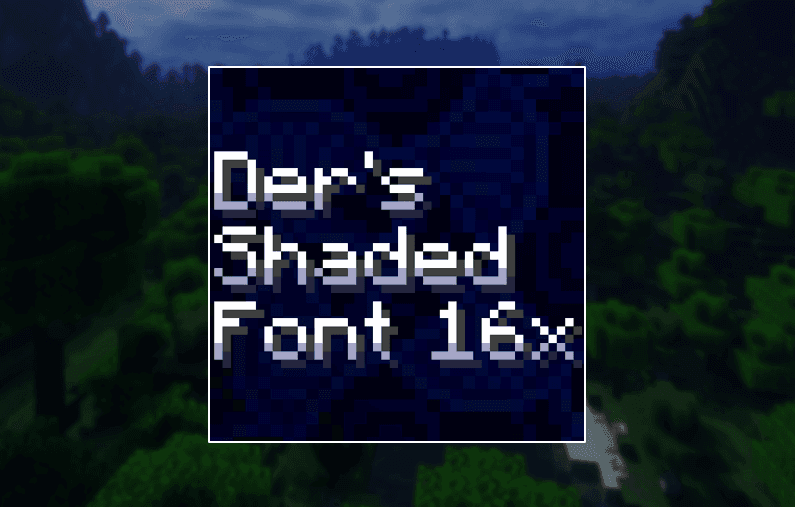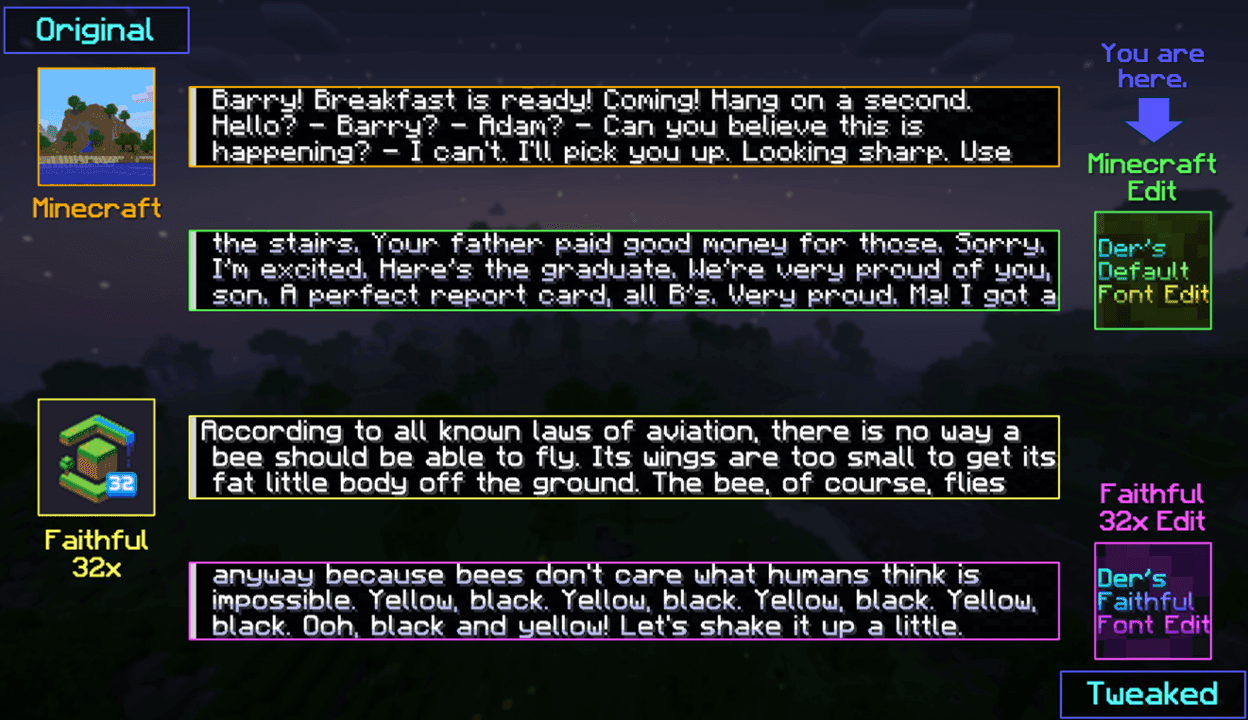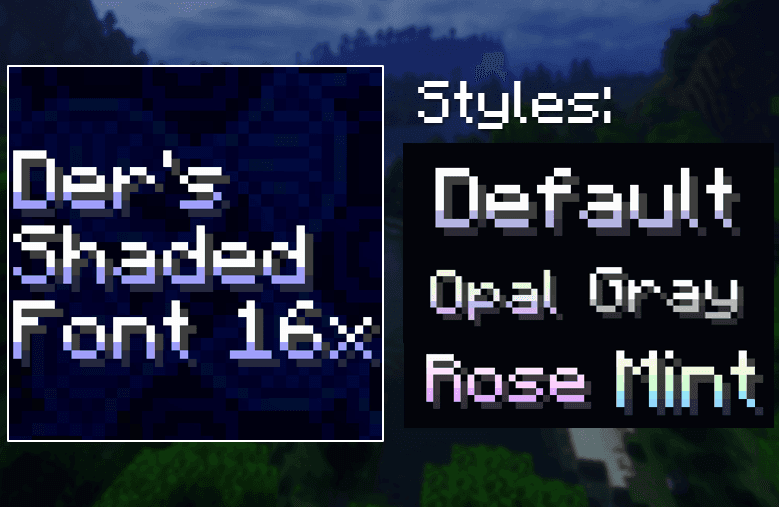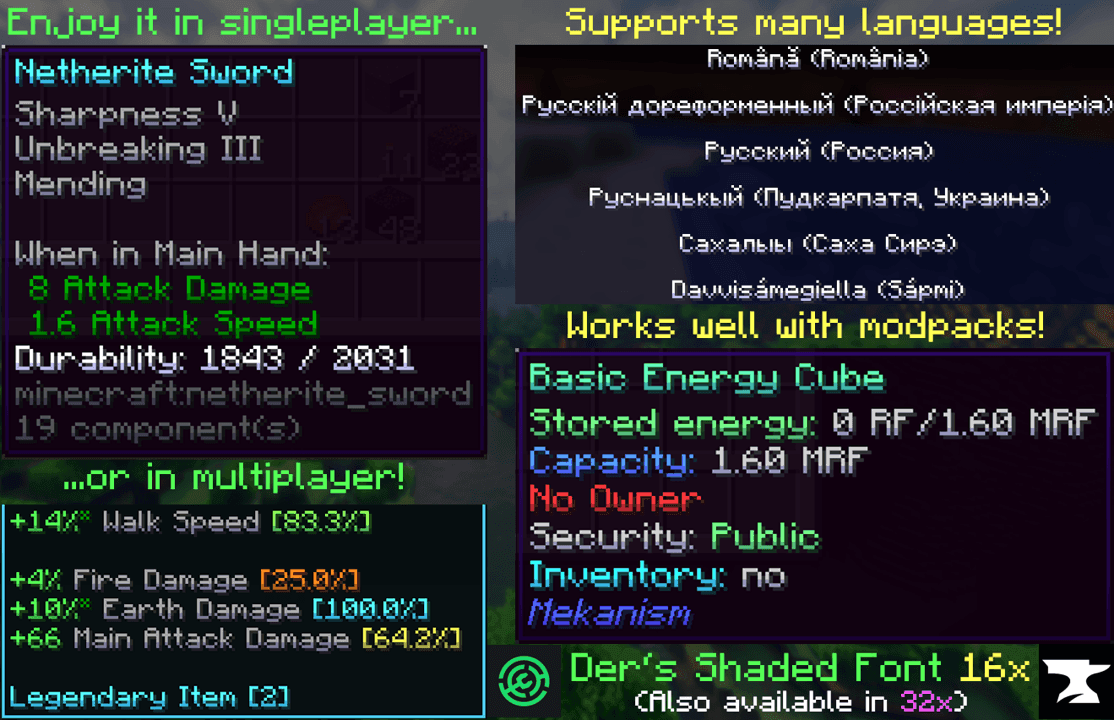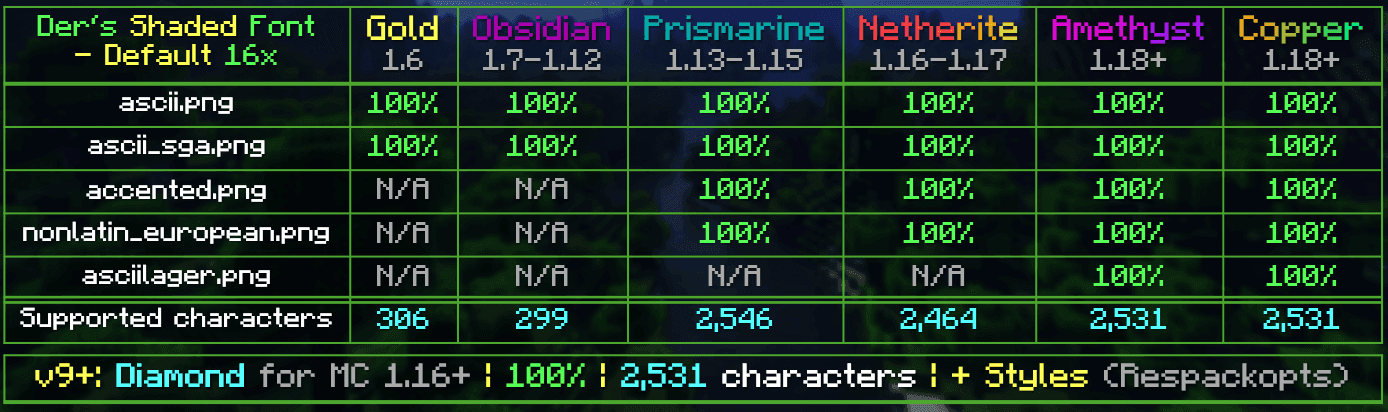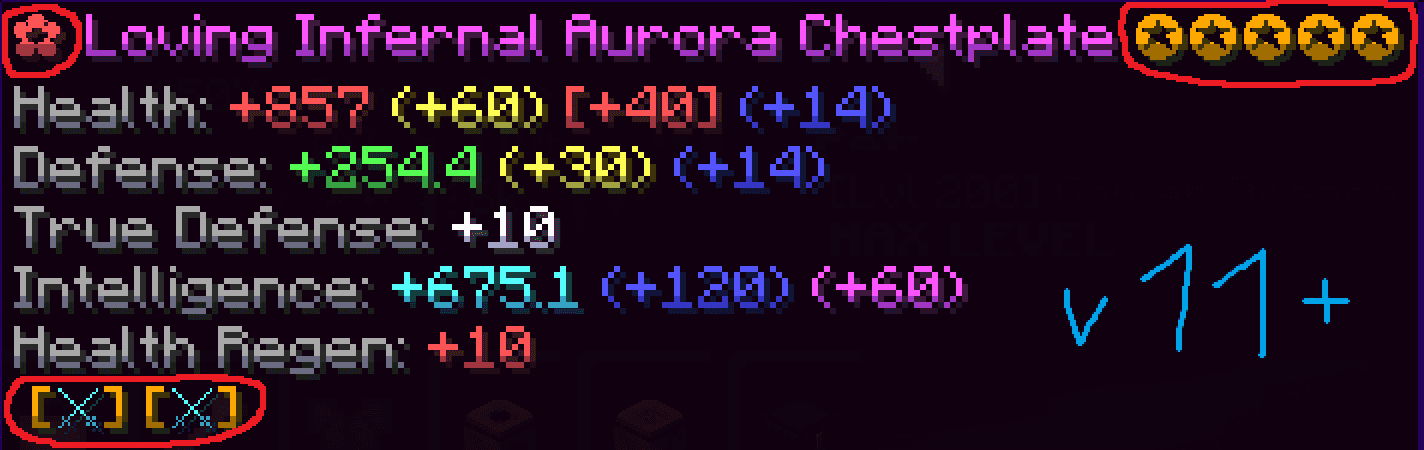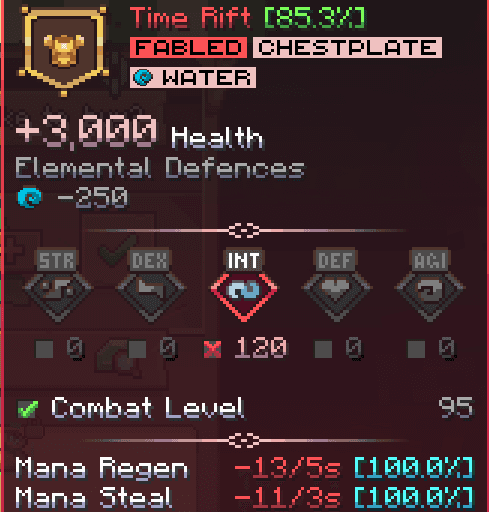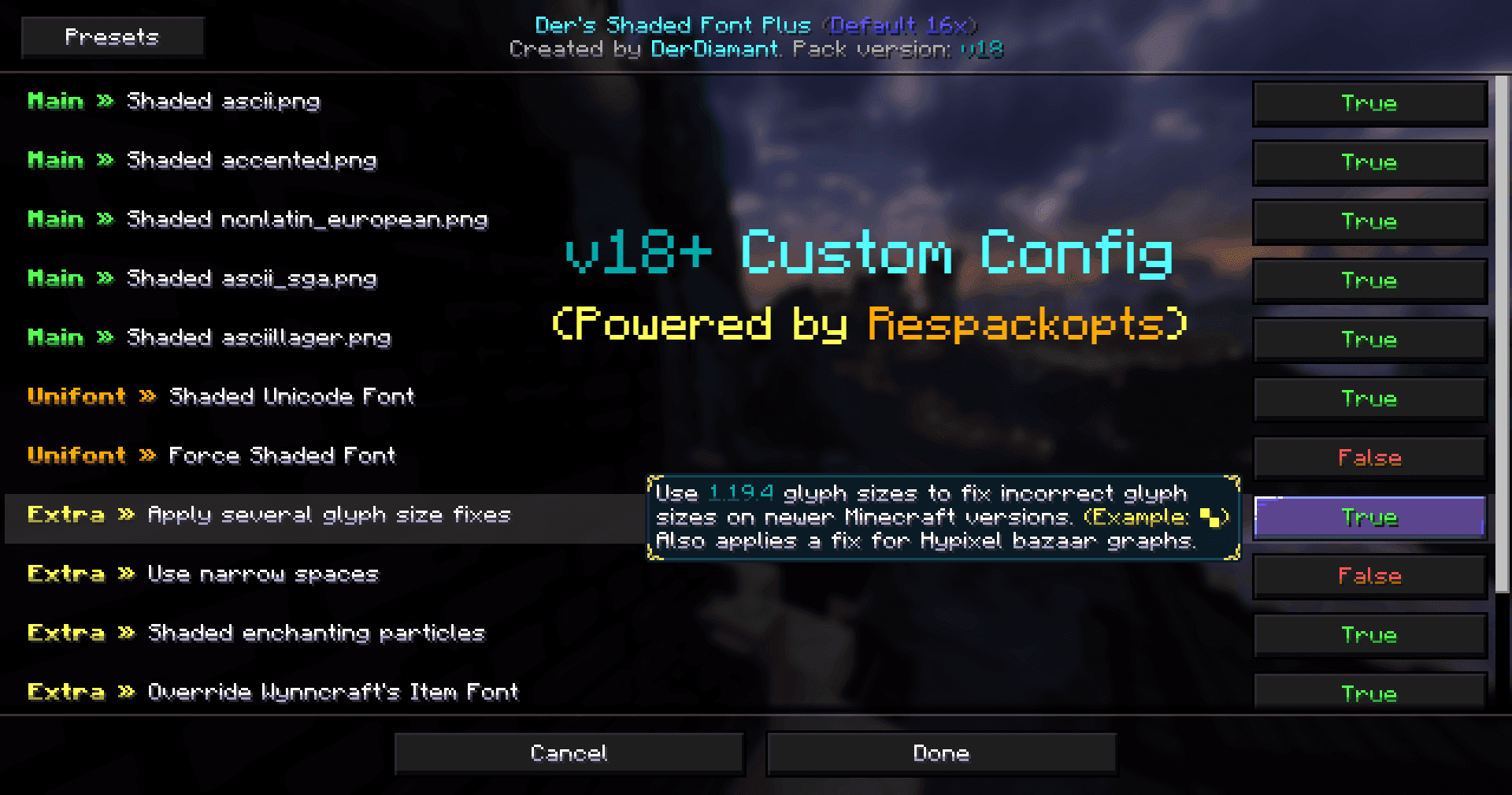
Der's Shaded Font Plus (Default 16x)Minecraft resource pack for 26.2
10'000+ Shaded Glyphs | Config | Hypixel Skyblock & Wynncraft Support | Languages | Tweaks | The most advanced default shaded font | MC 1.6.1-26.2+